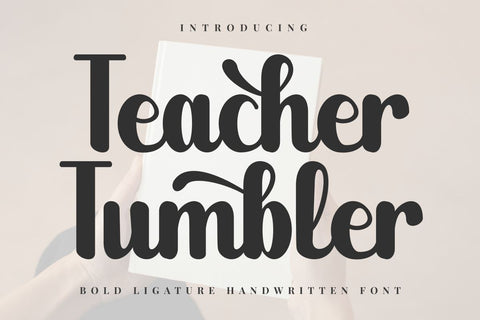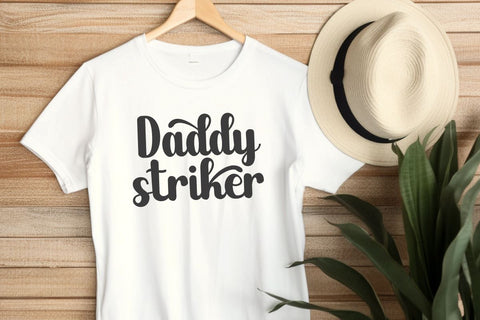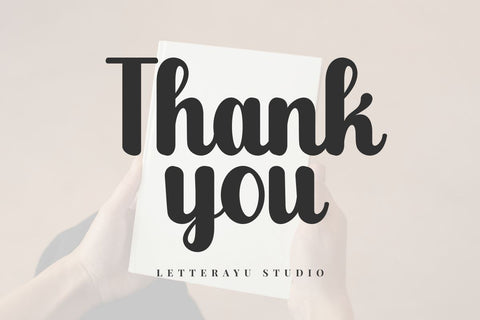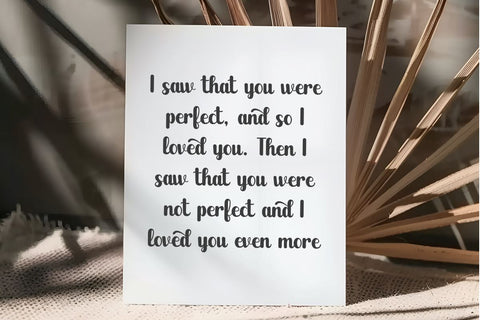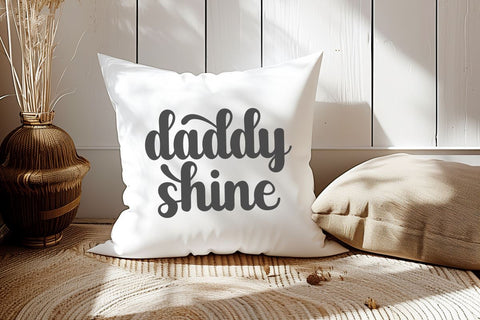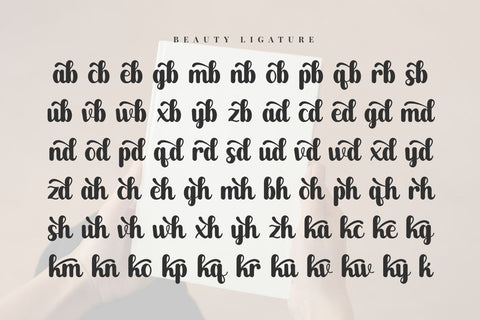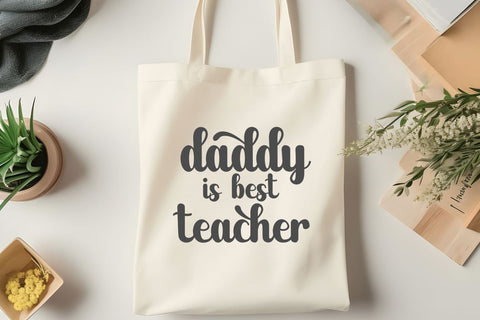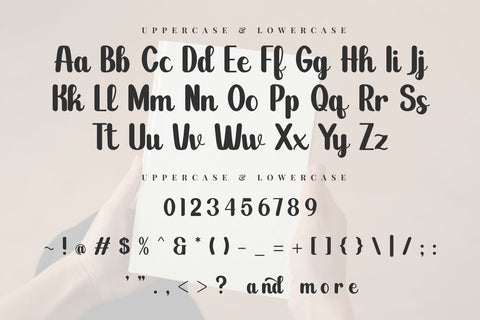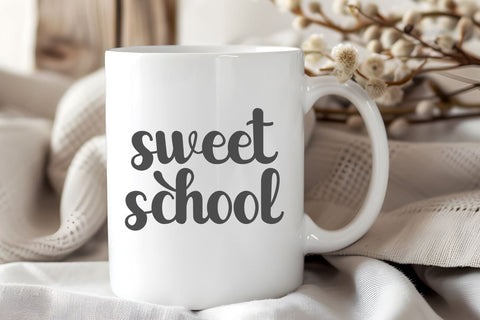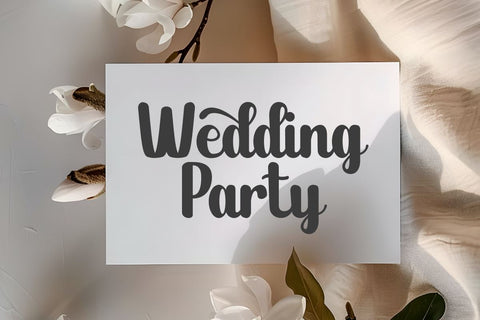
Teacher Tumbler - Handwritten Font
Teacher Tumbler Font is a modern, beautiful and simple handwritten font. Some projects that are suitable for this font include quotes, menus, taglines, flyers, posters, invitations, greeting cards, posters, business cards, clothing, letters, stationery, and many other ideas. Equipped with uppercase, lowercase, numbers, punctuation, and ligature characters, this will be a very useful addition to your projects.